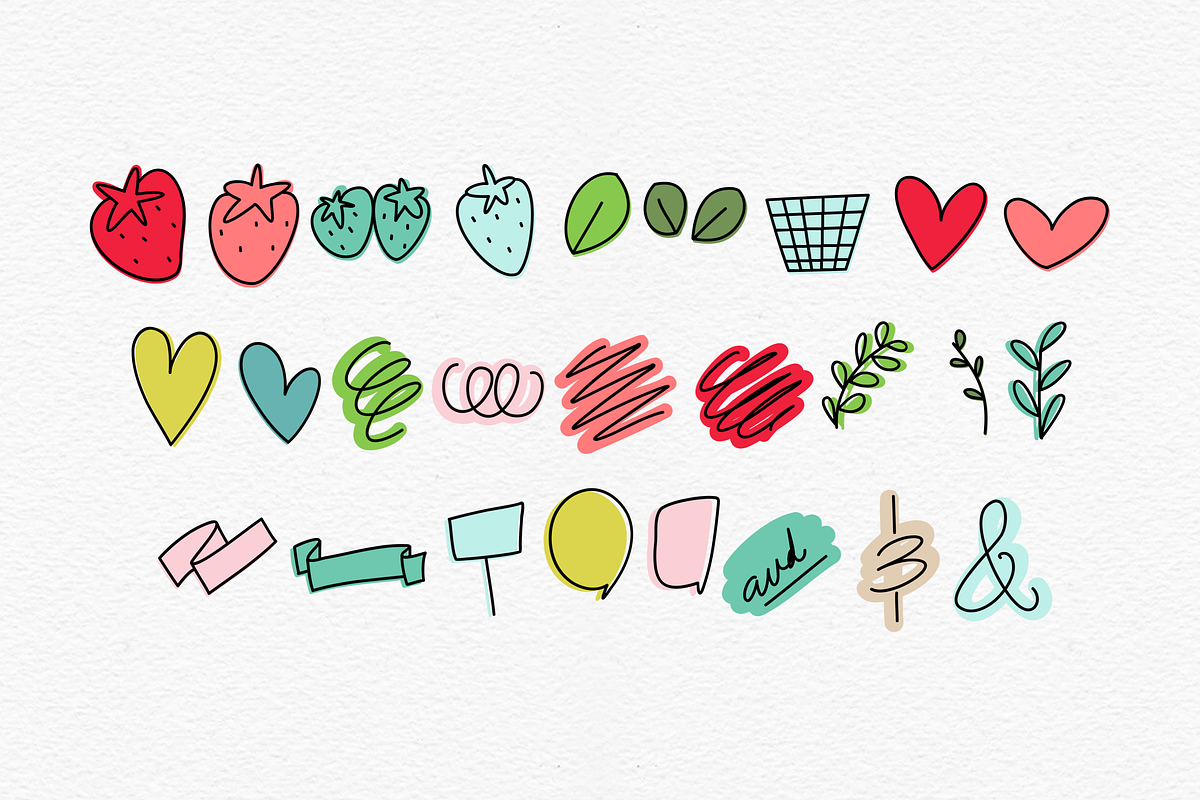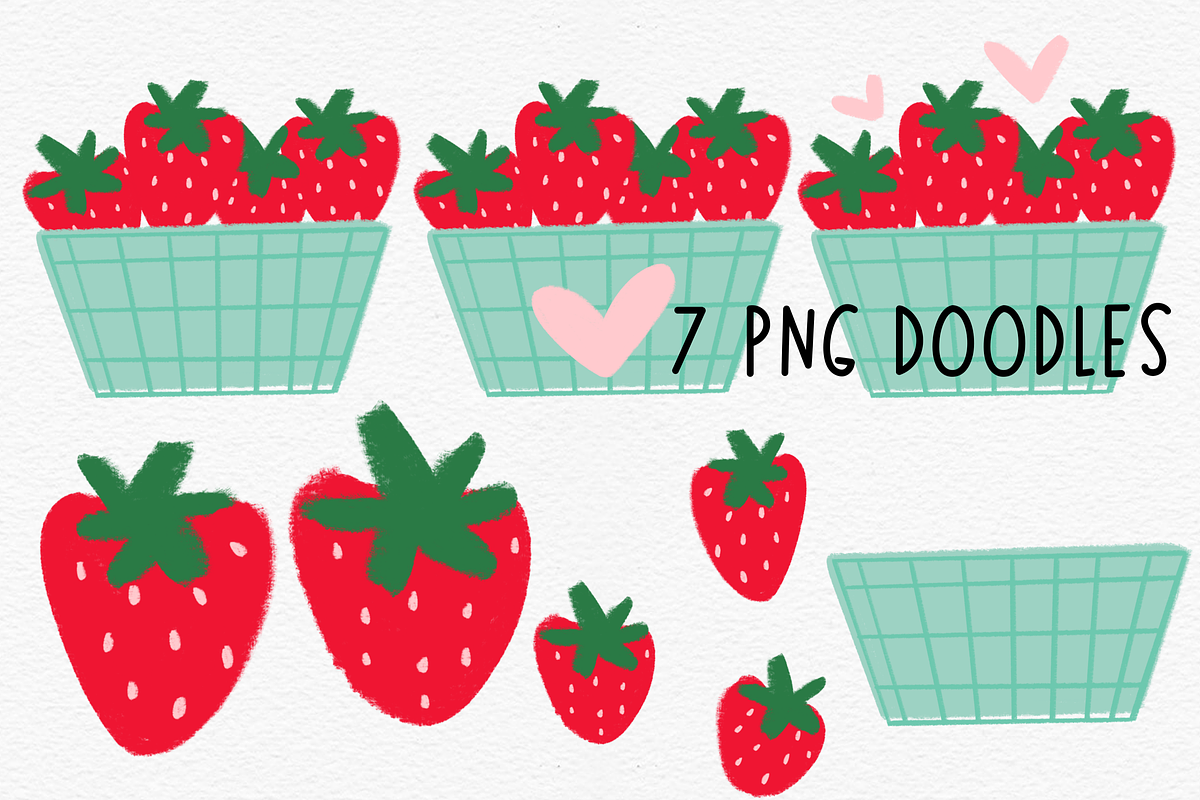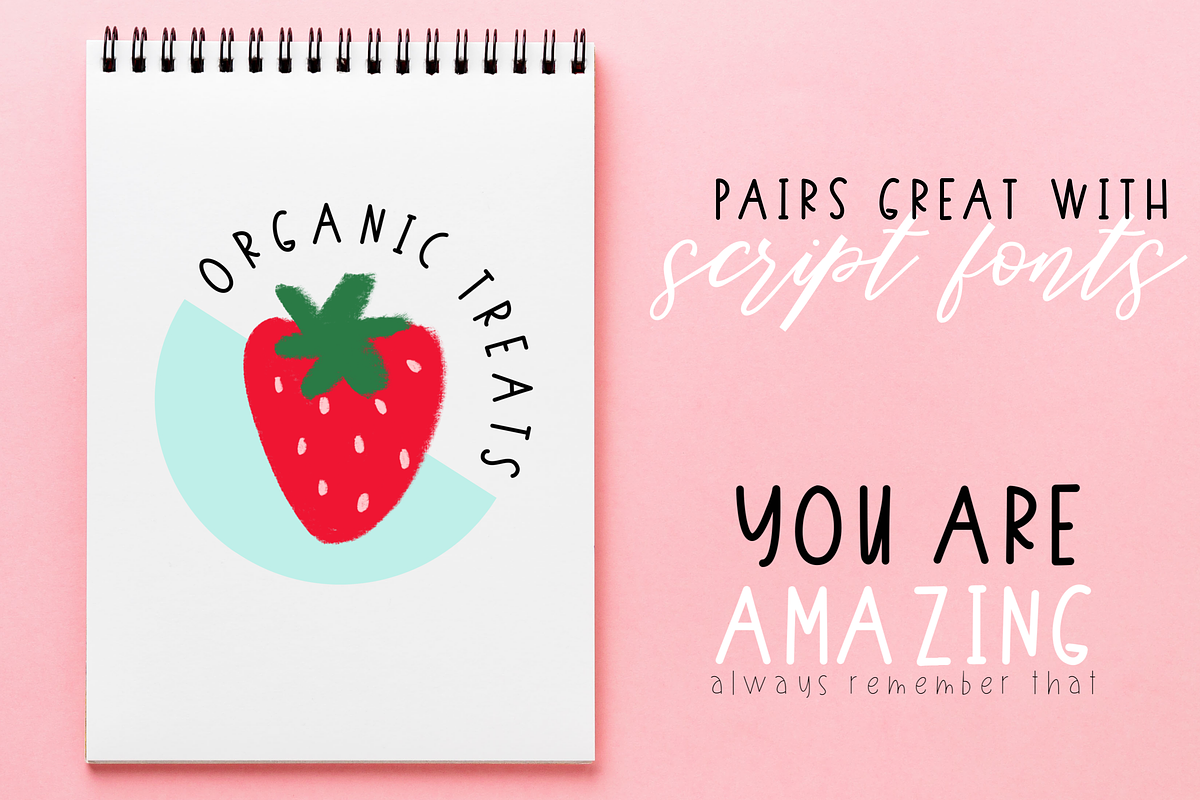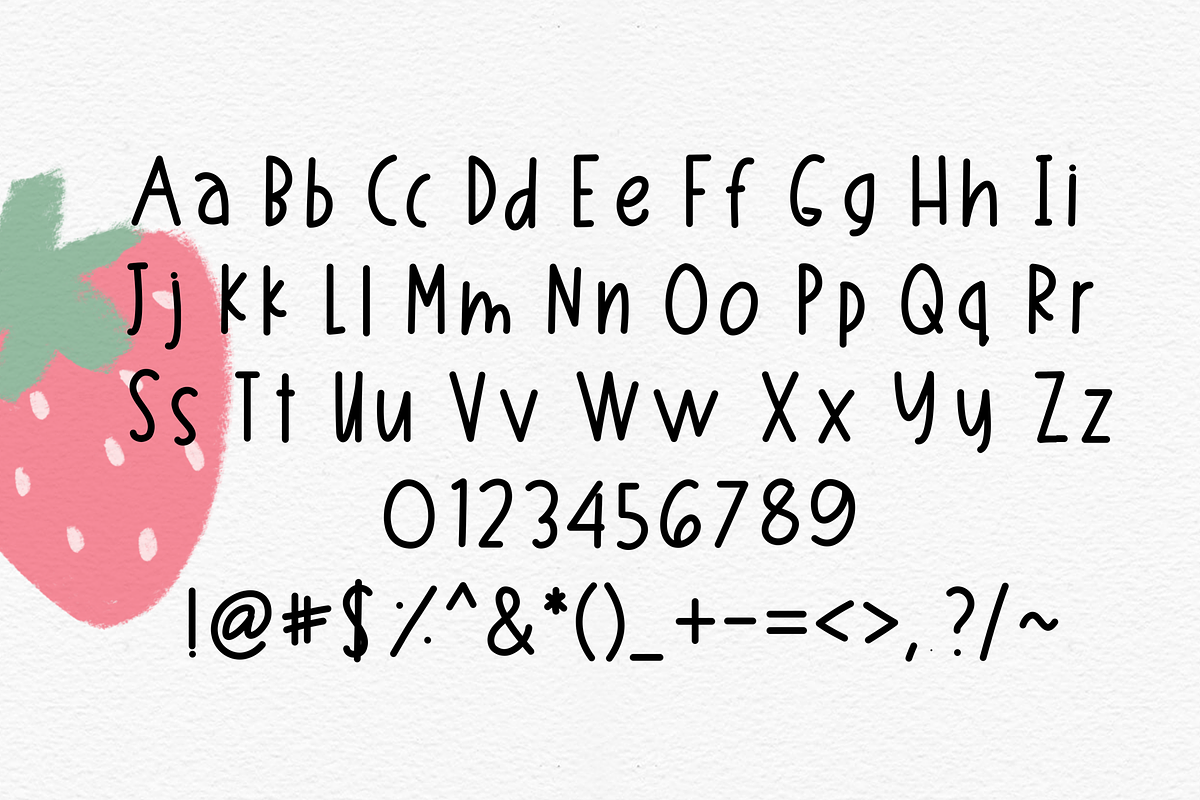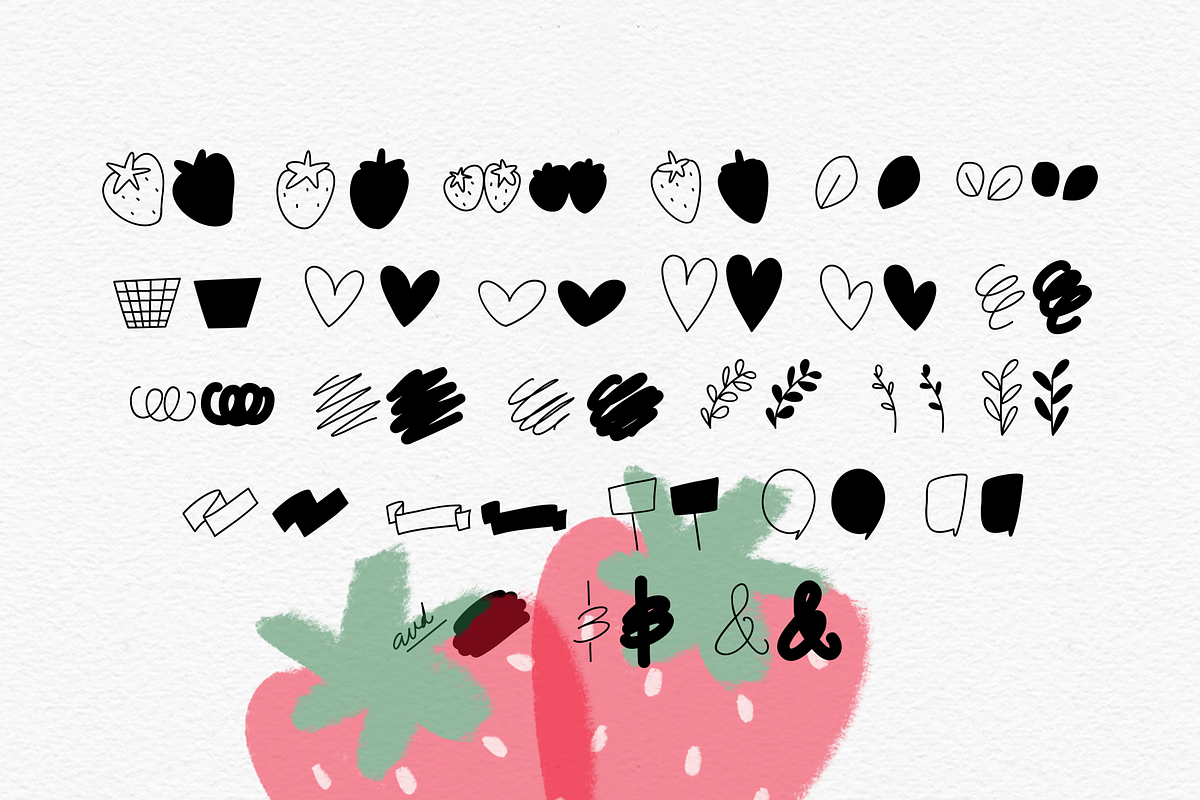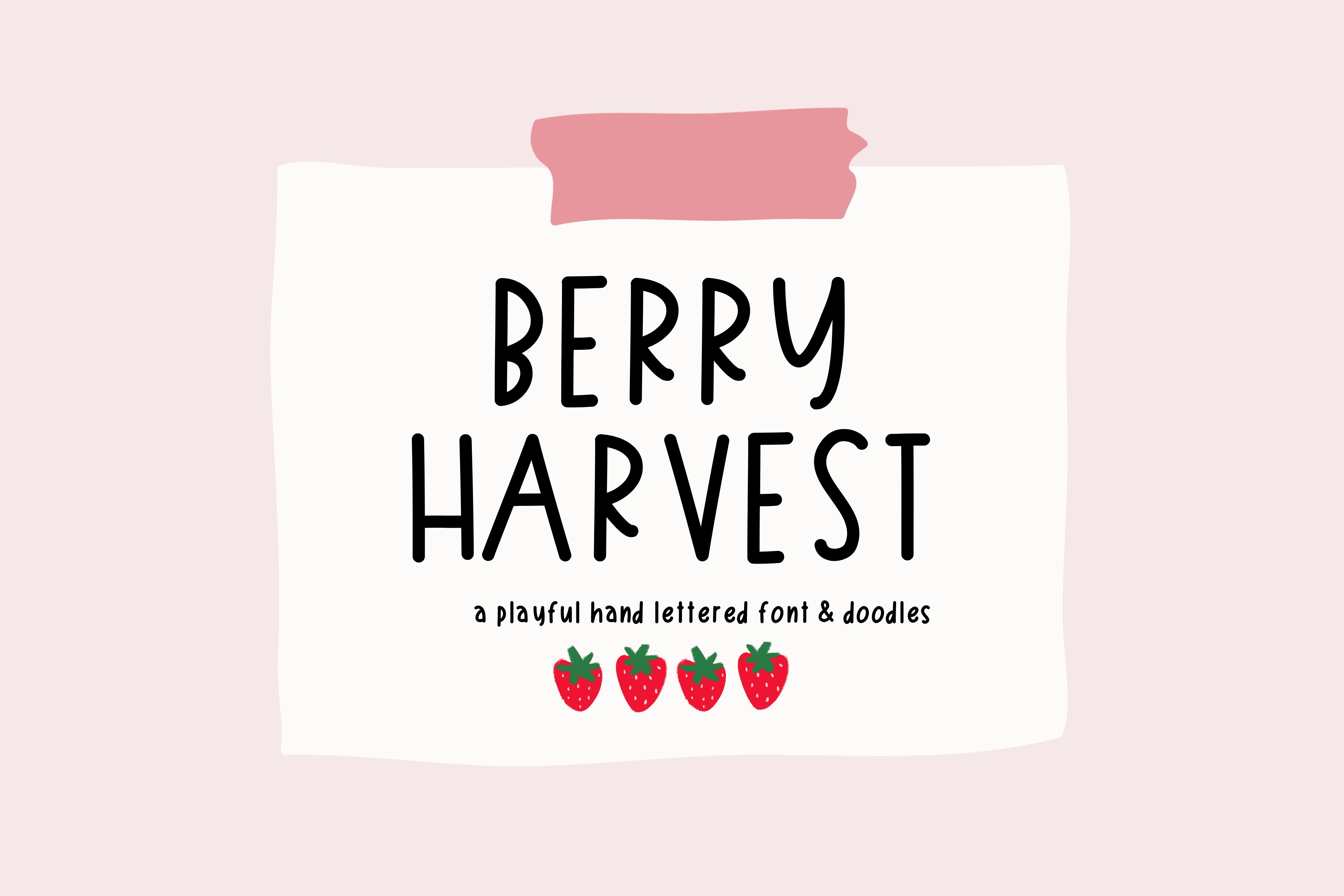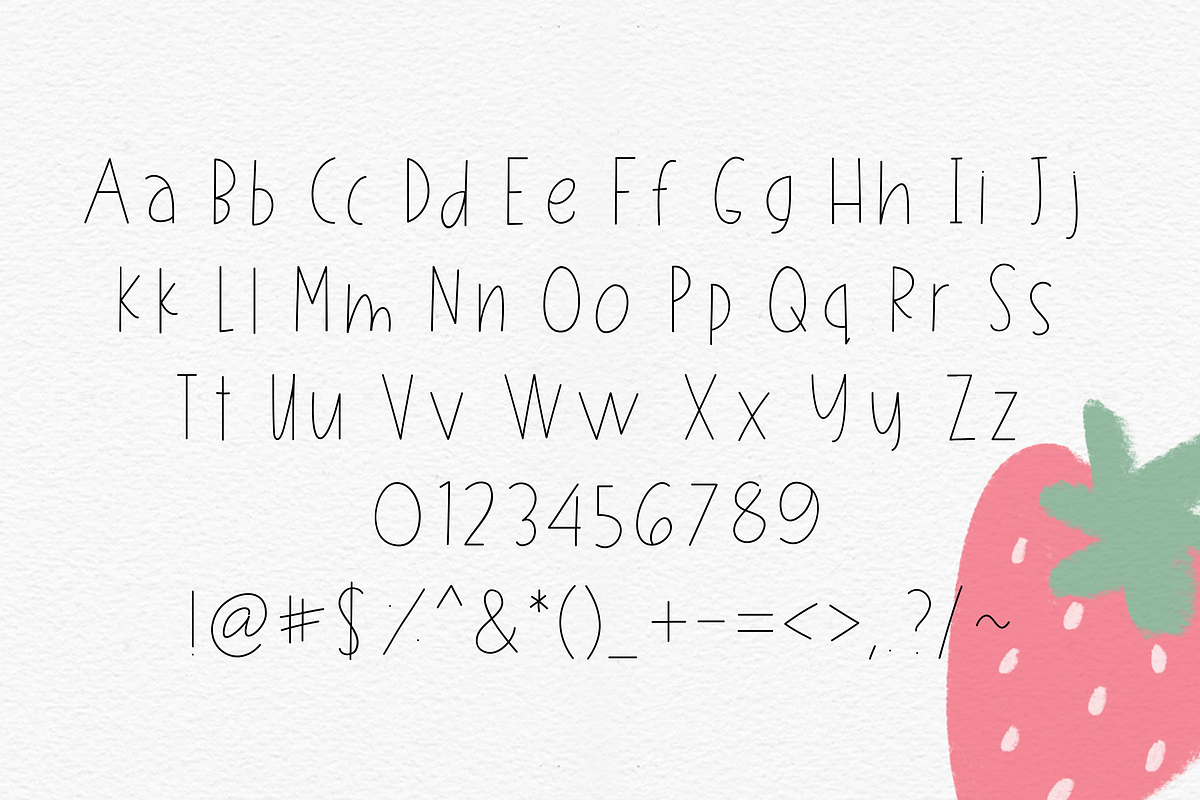
Berry Harvest Font & Extras
A sweet new hand lettered font. Fun addition to your next project! -Fonts included: Berry Harvest Bold Berry Harvest Extras -Font Includes Full Alphabet, Upper, and Lower, Numbers, as well as Punctuation. -Extra font doodles, include lines and filled to add variety. -TTF Files. -7 Strawberry Doodles are PNG 4000X4000 Pixels, 300 dpi.